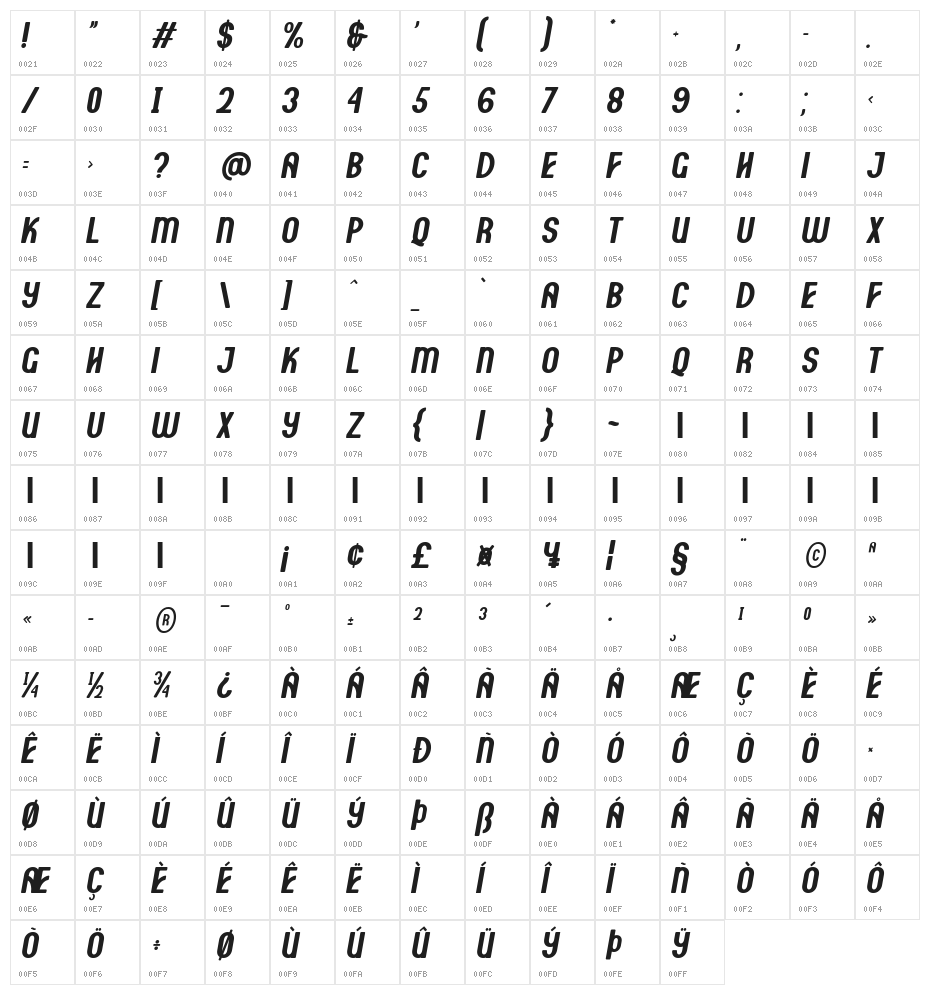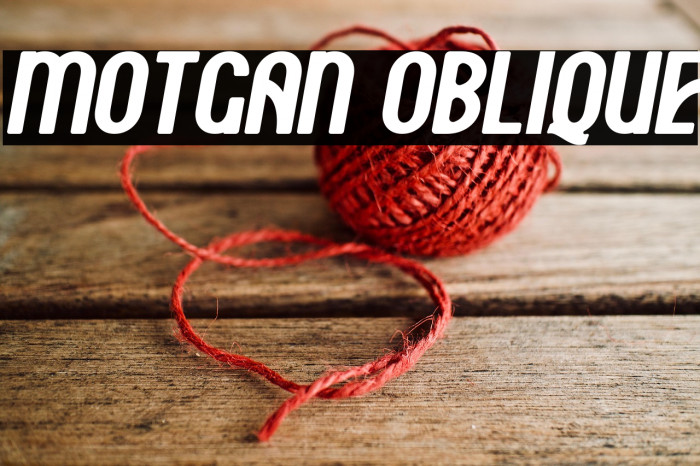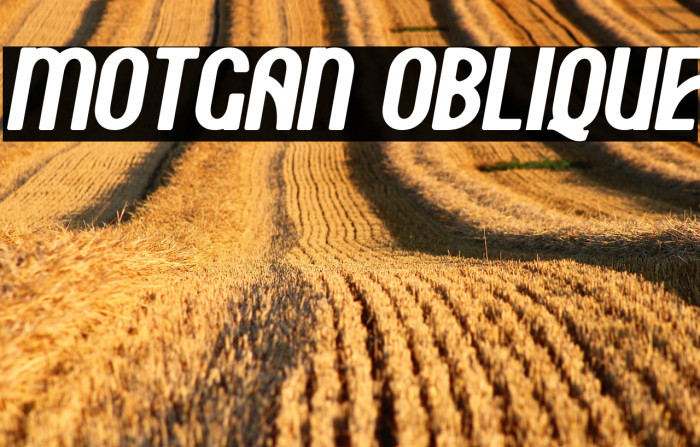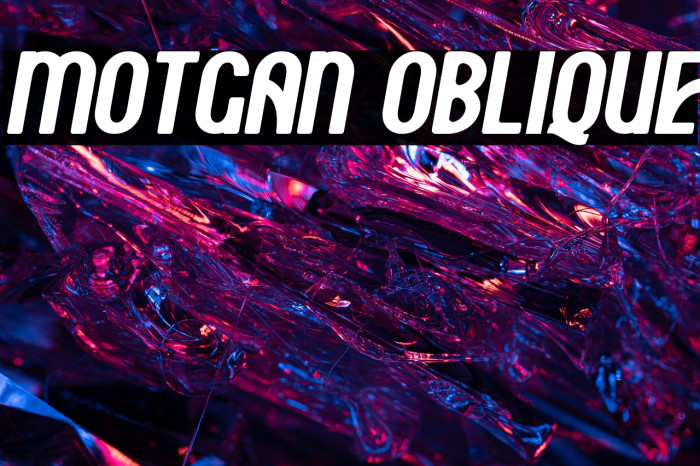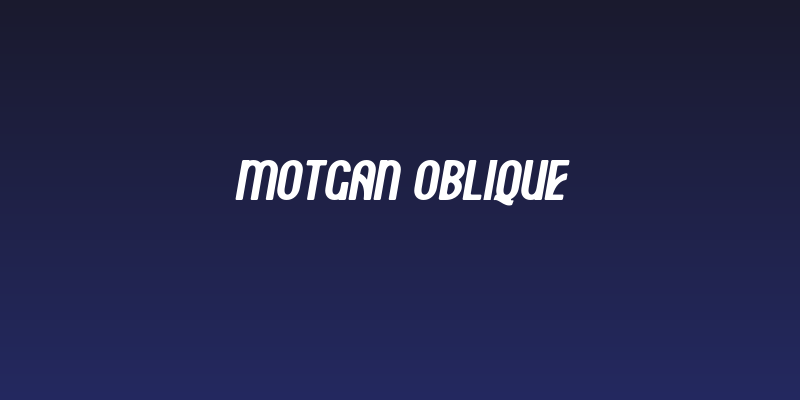
Motgan Oblique Font
Motgan Oblique Description
This font features a bold and dynamic oblique style, characterized by its slanted and energetic letterforms. The uppercase and lowercase letters maintain a consistent slant, giving a sense of motion and fluidity. The strokes are thick, providing a strong visual impact, while the rounded edges soften the overall appearance, making it approachable yet assertive. The numerals and special characters follow the same stylistic cues, ensuring uniformity across all glyphs. This font's design is both modern and slightly retro, suitable for projects that require a bold statement.
| Proposed Projects | Ideal for branding, advertising, posters, and any design work that requires a strong, dynamic presence. |